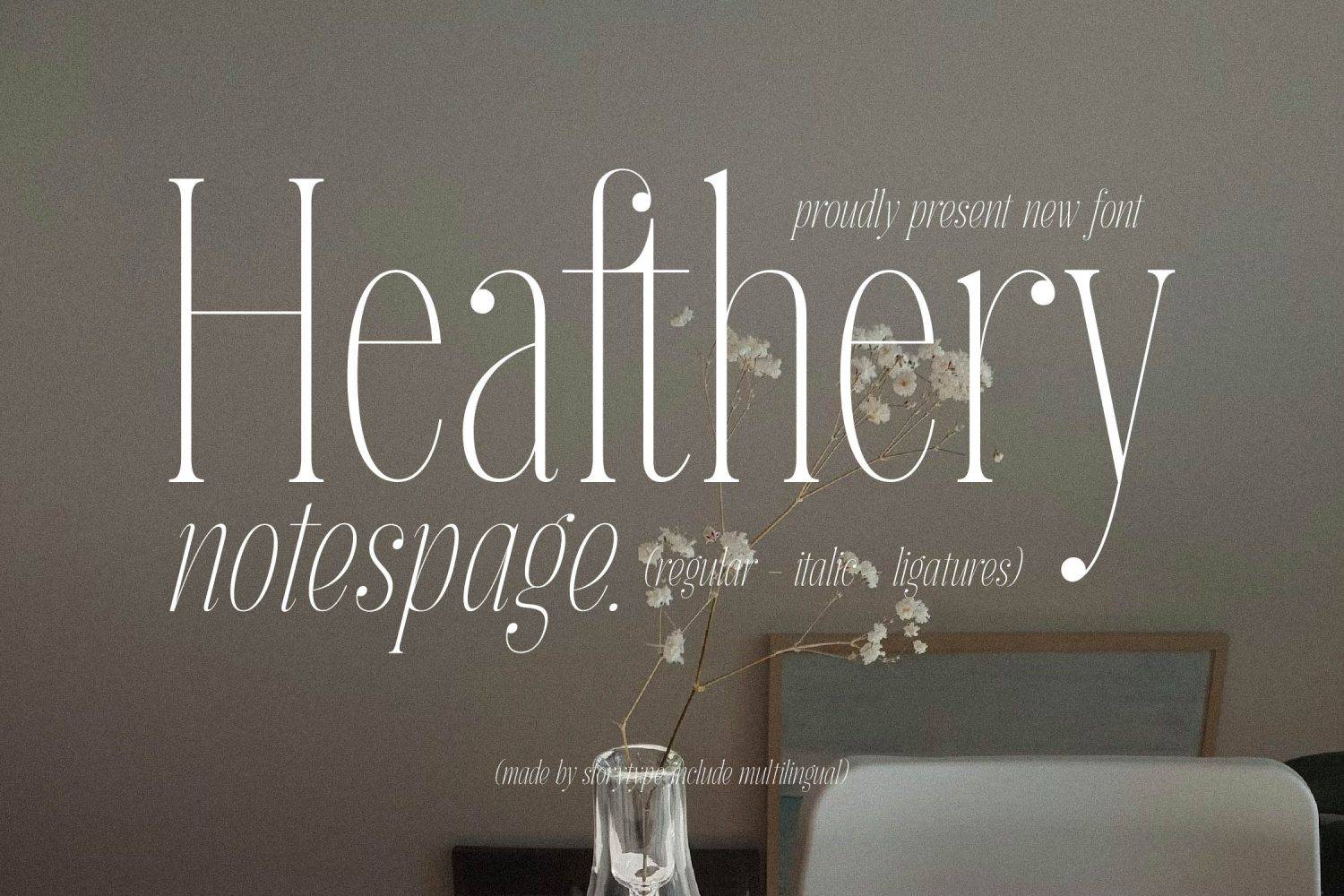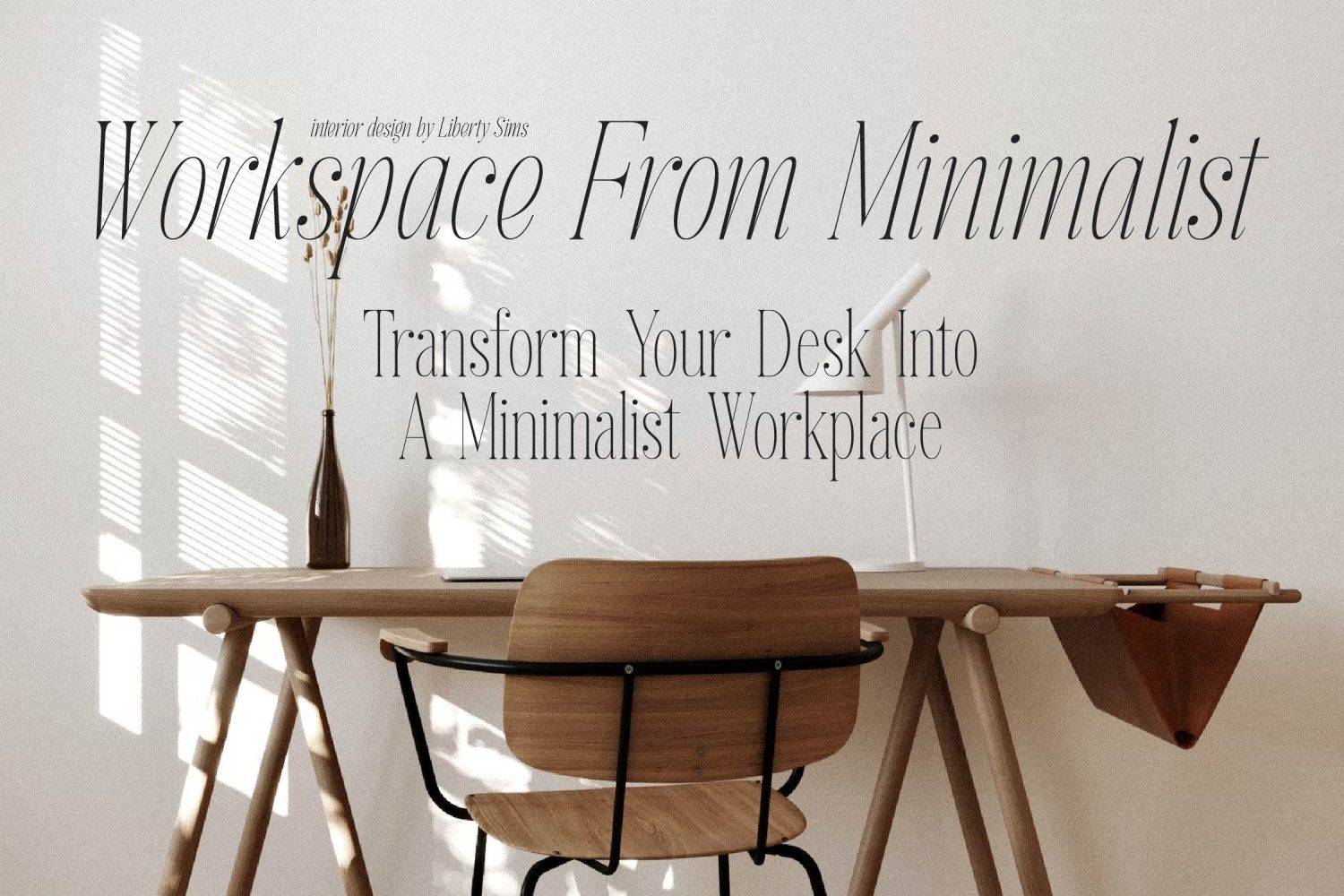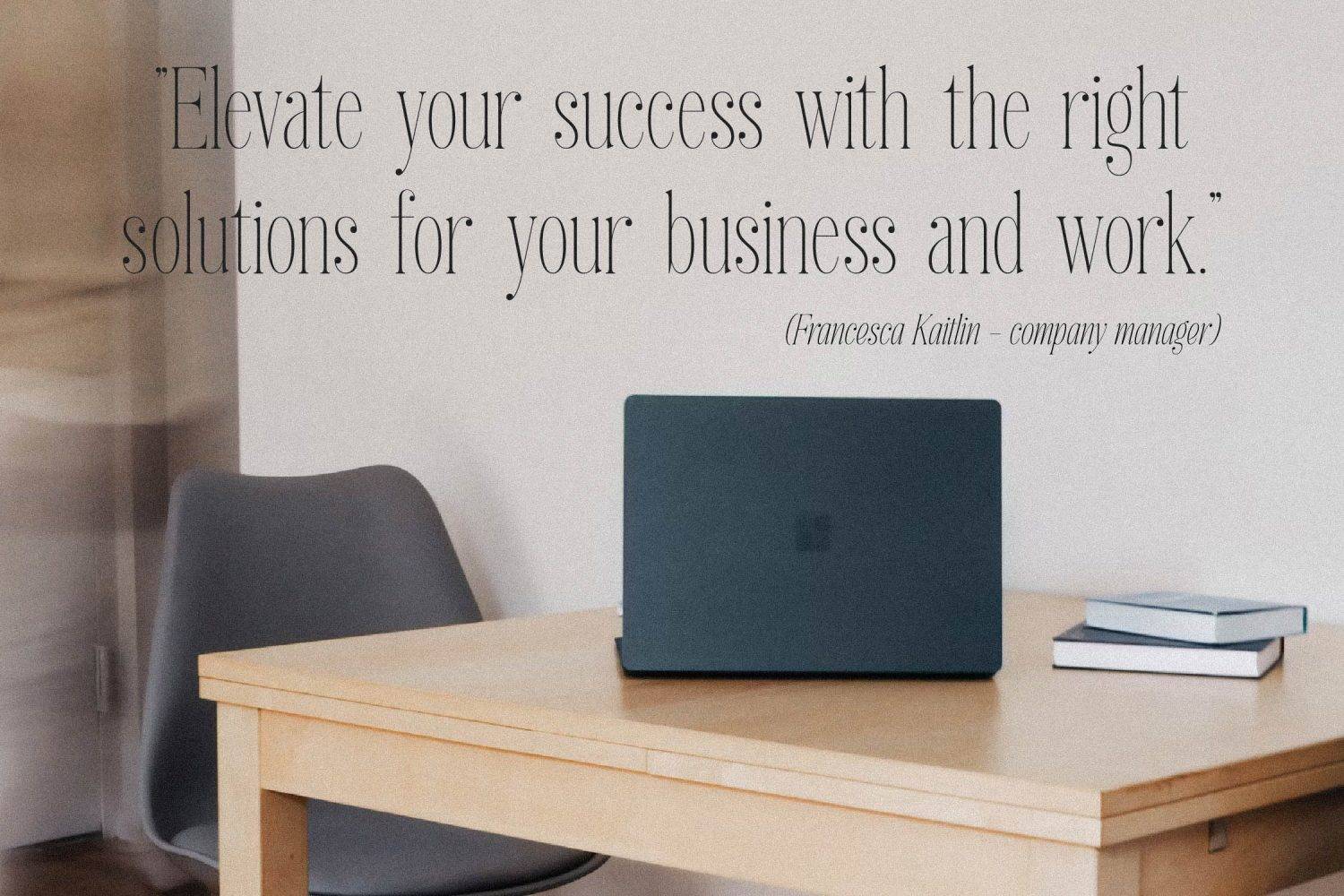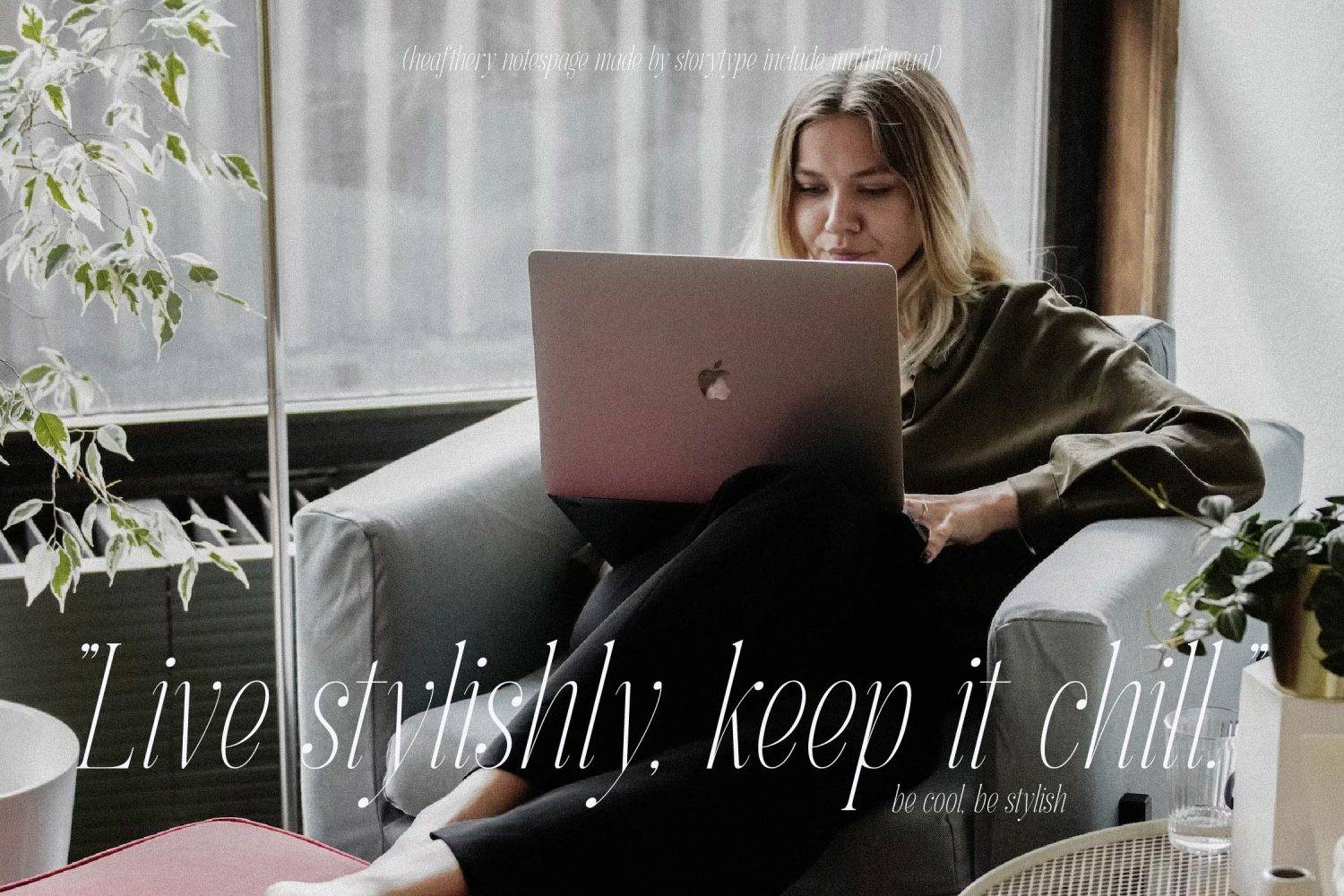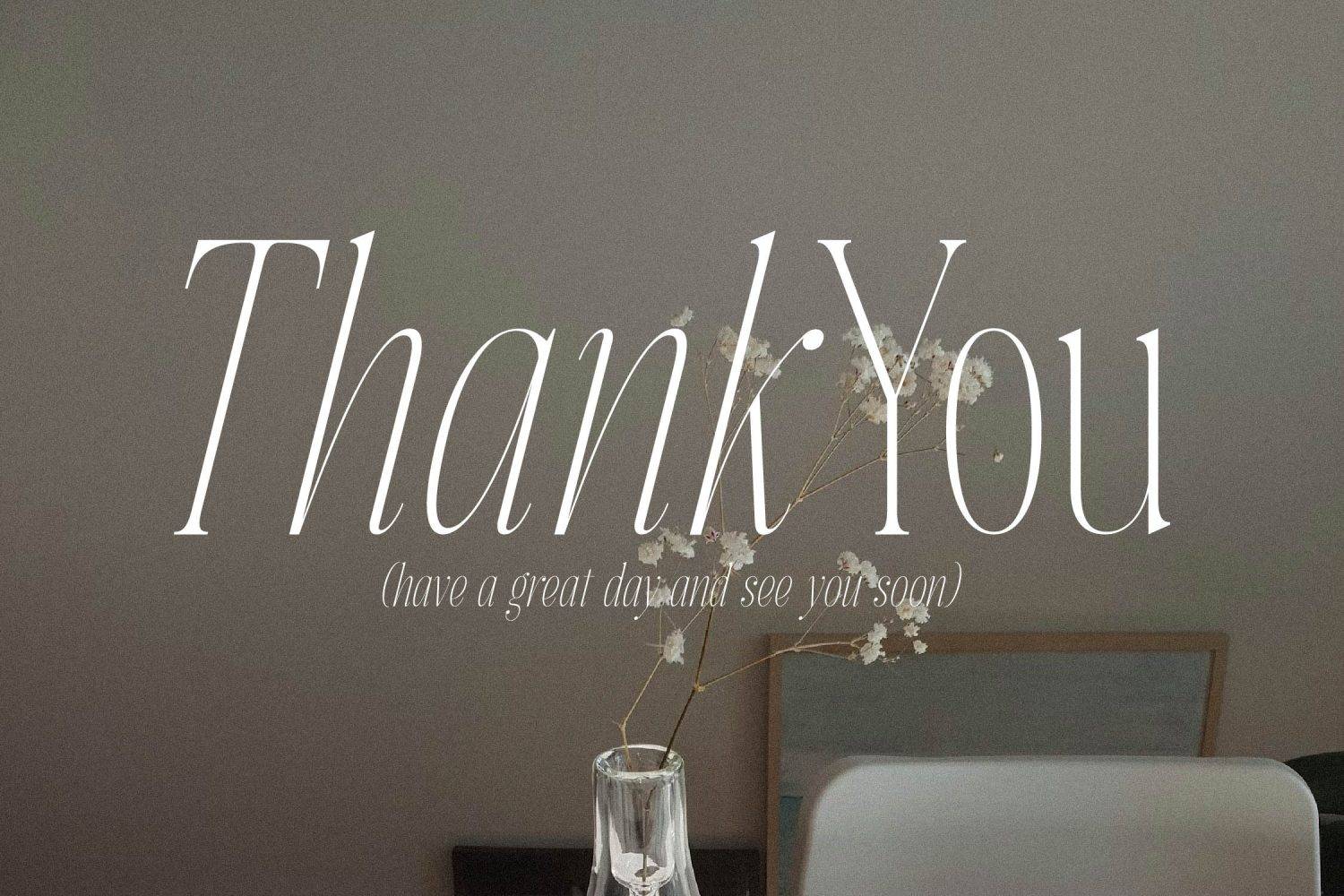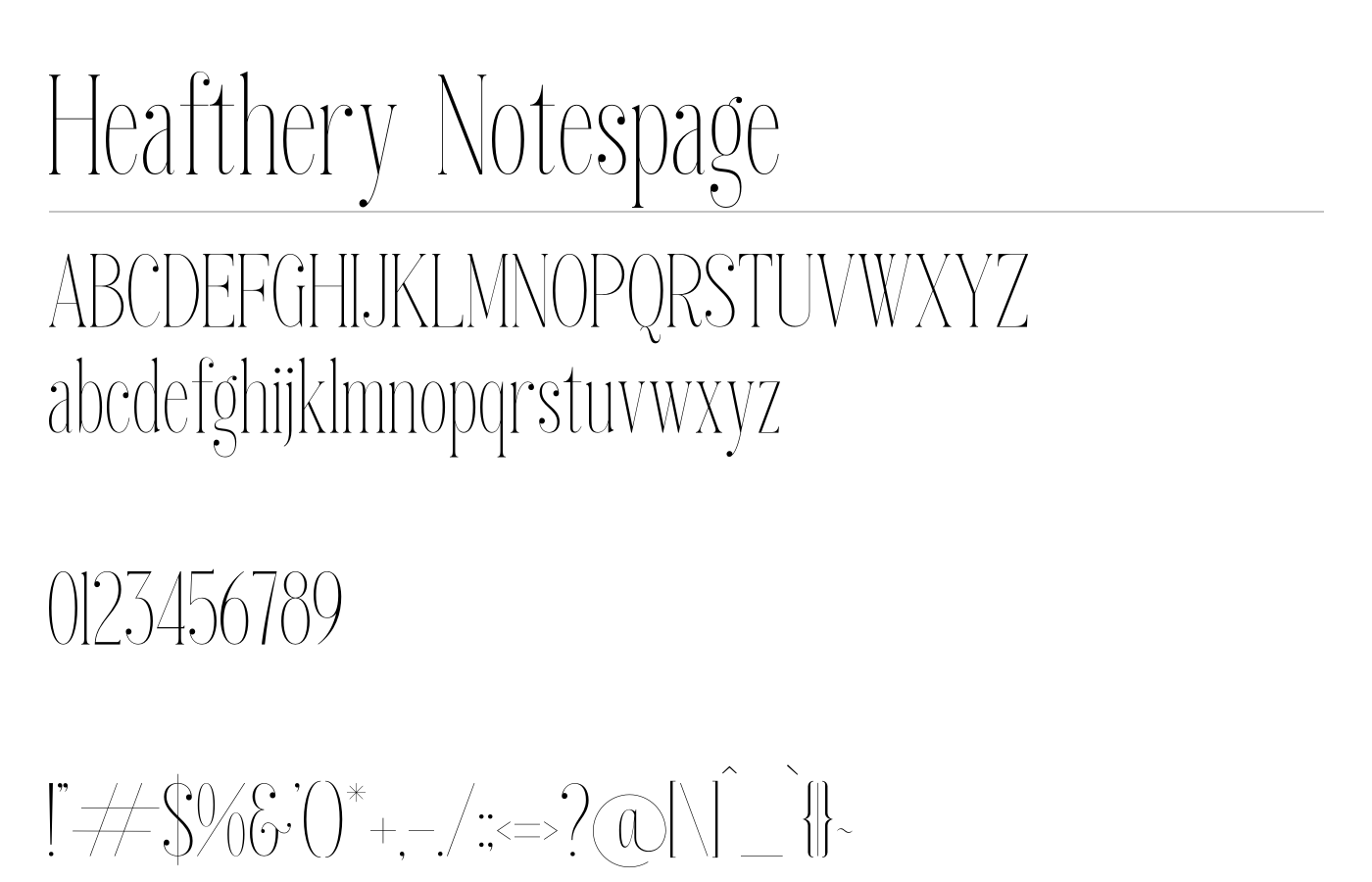
Heafthery Notespage is an elegant serif font characterized by its tall, narrow letterforms and high contrast between thin and thick strokes. Its delicate, refined lines combined with subtle decorative dots on certain letters give it a sophisticated and artistic feel, making it ideal for upscale editorial design, fashion branding, and stylish headlines. This font works best where a unique, classy touch is desired, adding a sense of luxury and refinement without overwhelming the design.
Heafthery Notespage Font
About Heafthery Notespage Font